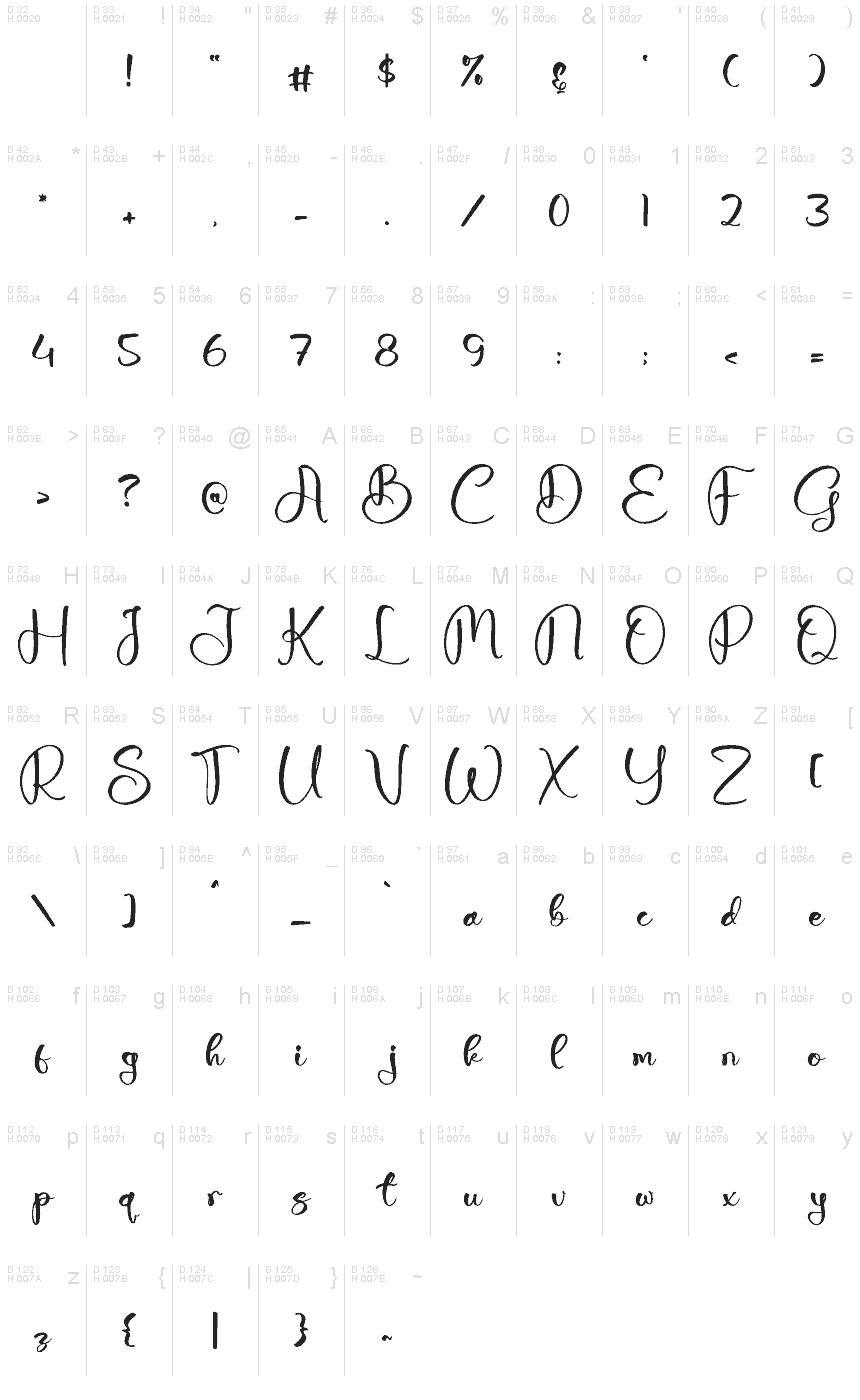
Fallecity Gosttely
Fallecity Gosttely font is a handwritten font designed by Letterena Studios with flowing lines, curves, and alluring strokes. The elegant shapes create expressive and decorative characters which combined form artistic words. In places the font appears condensed, but at the same time cursive connections give it a less uniform character.
When used correctly, Fallecity Gosttely will certainly fit branding designs for boutiques and fashion businesses. Logos of barber shops and cosmetic products will look outstanding when displayed in such a beautiful free handwritten font. Try it out next in wedding invitations, lettering quotes, book cover titles, or magazine headings.